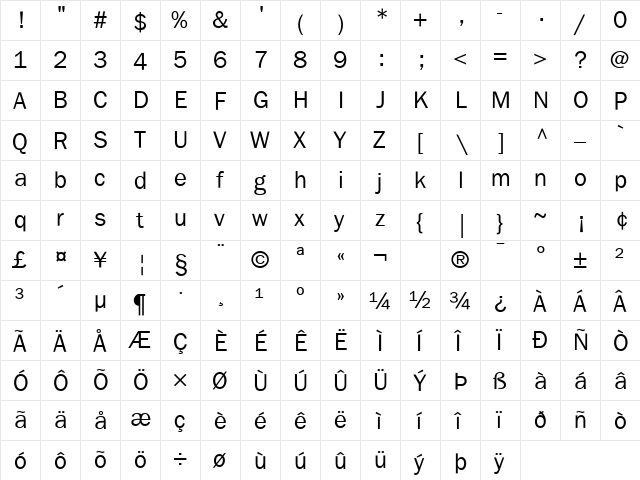
UnJamoSora Regular
| Designer | Koaunghi Un |
Design Context for UnJamoSora Typeface
UnJamoSora is a composed and adaptable typeface that performs quietly and consistently across a wide range of design contexts.